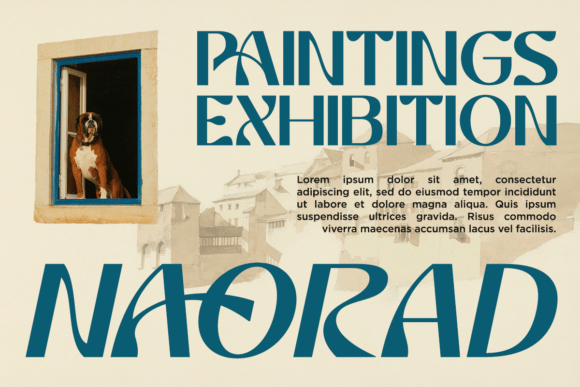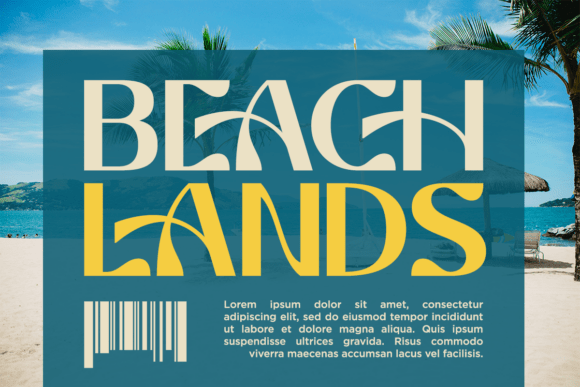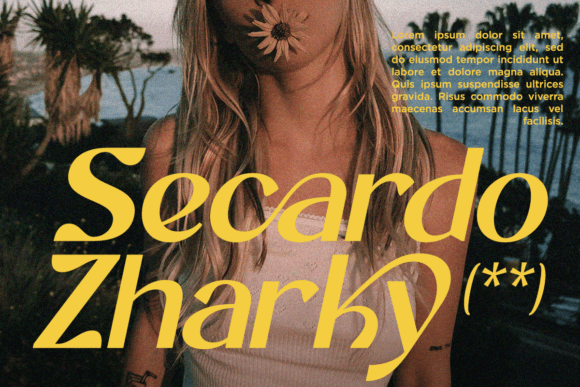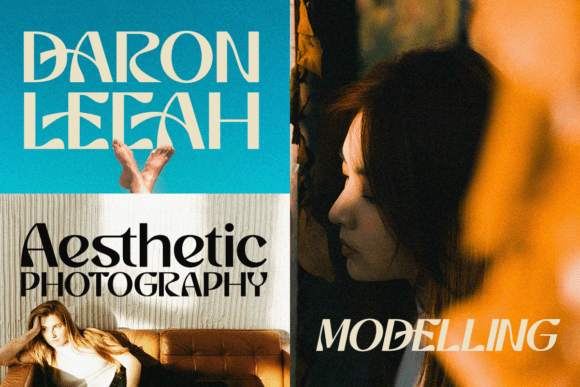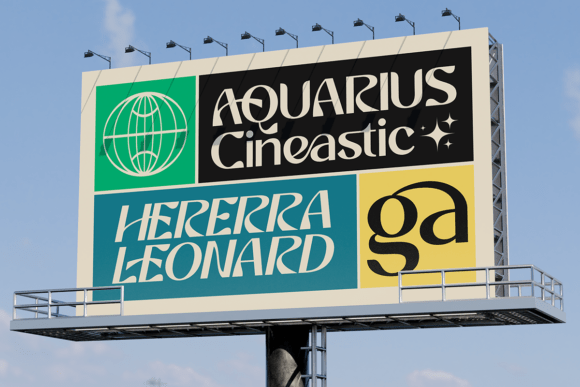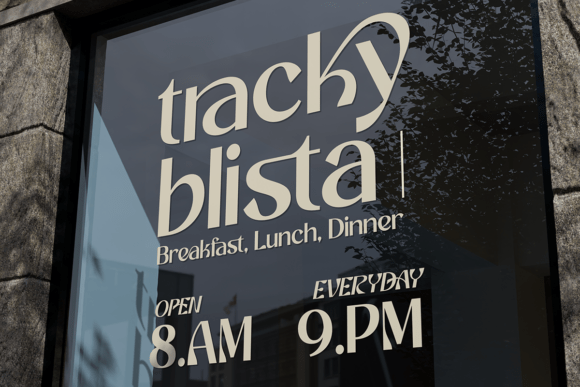
Introduction to Cherlav Font
Cherlav is a modern, ligature-driven sans-serif typeface crafted by Ragamkata Studio.
It combines sleek geometric precision with artistic, flowing curves to create a refined and stylish visual identity Each character is sculpted with distinctive strokes and deliberate negative space, giving the font a sophisticated, contemporary personality.